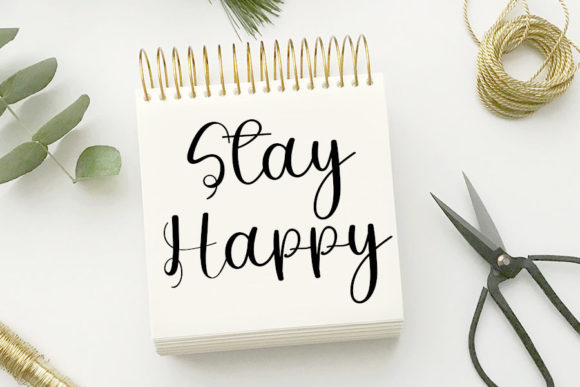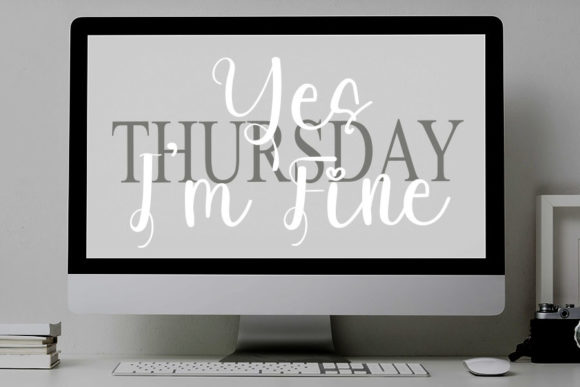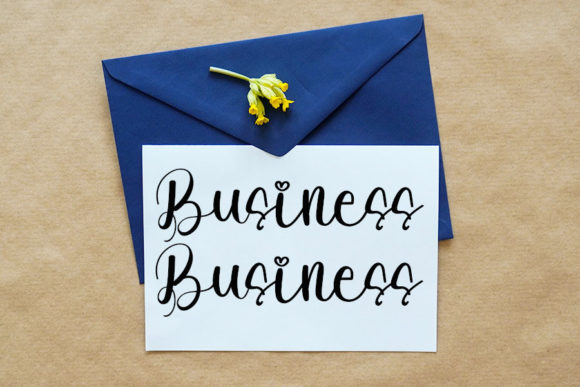
Introduction to Rayloon Font
Rayloon is a flowing handwritten font, described by an elegant touch, perfect for your favorite projects.
Why Choose Rayloon Font?
Rayloon Font offers exceptional quality and versatility, making it a valuable addition to your design toolkit. Whether you’re creating for personal projects or commercial use, Rayloon Font delivers professional results.